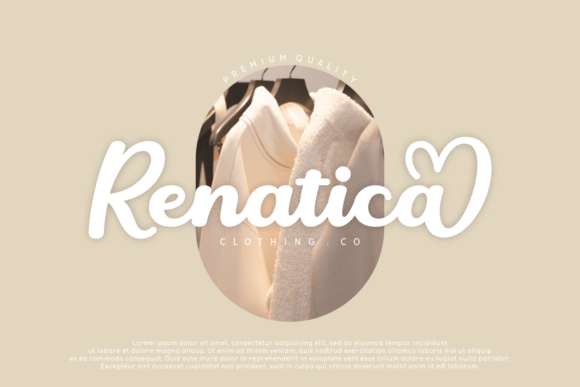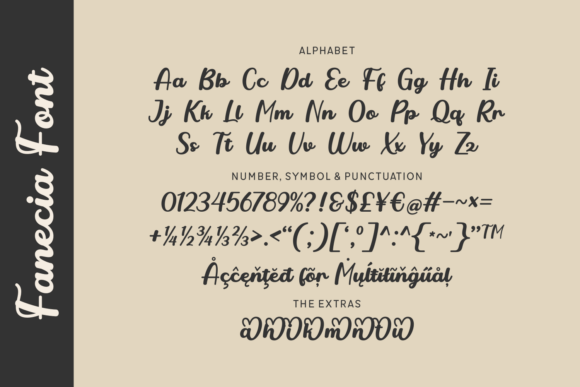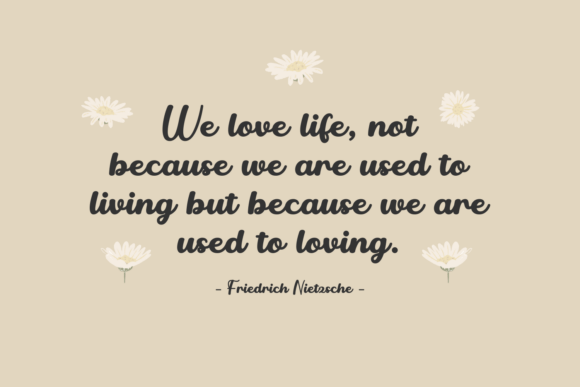
Introduction to Fanecia Font
Fanecia is a bold script font that features playful heart swashes.
Its stylish curves and whimsical design make it perfect for adding a romantic touch to invitations, greeting cards, and other creative projects The combination of bold letters and charming heart accents gives it a fun and lively look.
Key Features of Fanecia Font